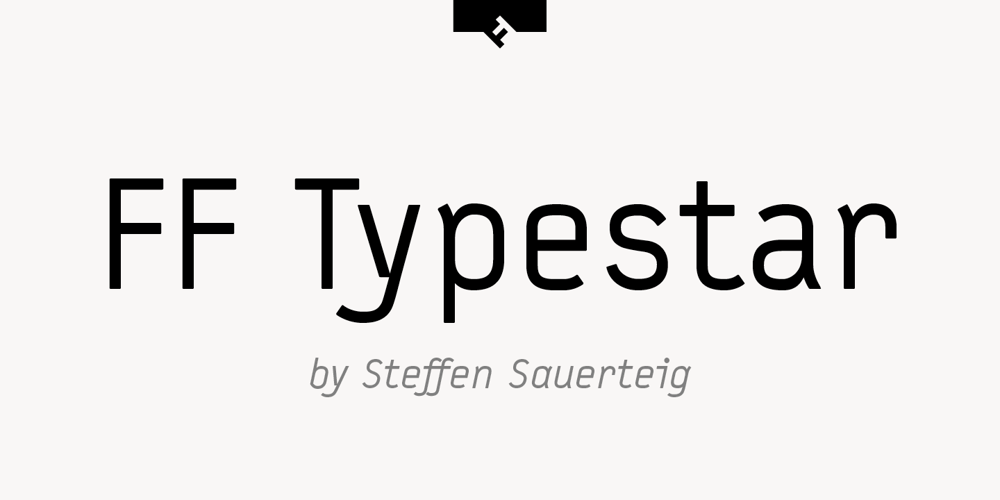
FF Typestar Font Family was designed by Steffen Sauerteig and published by FontFont. FF Typestar contains 4 styles and family package options. German type designer Steffen Sauerteig created this slab FontFont in 1999. The family contains 4 weights: Regular, Italic, Black, and Black Italic and is ideally suited for advertising and packaging, editorial and publishing, logo, branding and creative industries, poster and billboards as well as wayfinding and signage. FF Typestar provides advanced typographical support with features such as ligatures, alternate characters, case-sensitive forms, fractions, super- and subscript characters, and stylistic alternates. It comes with tabular lining and proportional lining figures. This FontFont is a member of the FF Typestar super family, which also includes FF Typestar OCR.